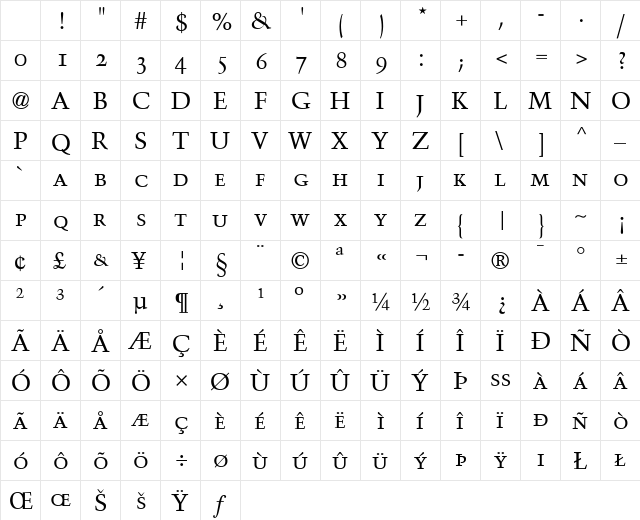
Complete Trump Mediaeval SC Regular glyph index. Displaying only characters natively supported by Trump Mediaeval SC Regular font.
Trump Mediaeval SC is a composed and adaptable typeface that performs quietly and consistently across a wide range of design contexts.